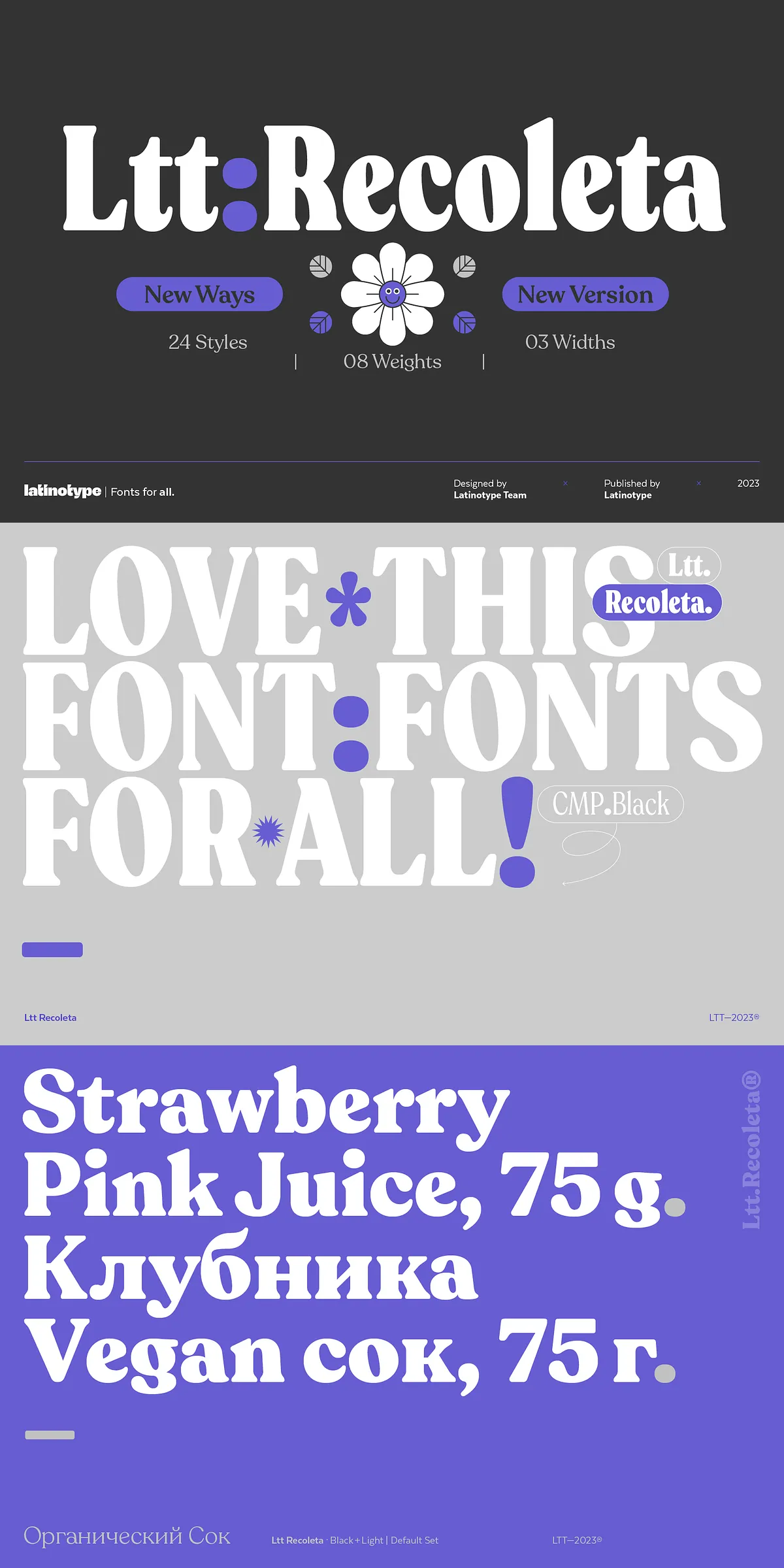
Meet Recoleta, a font family designed for dynamic and elegant typography needs. With a total of 24 distinct styles, Recoleta offers unmatched flexibility by expanding the classical width with two new condensed variants—one extremely narrow and sleek, and another positioned between the standard and condensed widths.
Comprehensive Weight and Width Options for Every Design
Recoleta’s design spectrum covers an impressive range, allowing creators to tailor their typography to precise specifications. Each of the three widths—classical, condensed, and the midpoint variant—includes eight weights ranging from thin to black, ensuring your text commands attention regardless of context.
Wide-Ranging Stylistic Alternatives
Beyond weight and width, Recoleta elevates your design with a wealth of stylistic alternatives. These options enrich both uppercase and lowercase characters, empowering you to infuse personality and uniqueness into your projects. Whether you want a subtle twist or a bold flair, these alternatives provide countless creative possibilities.
Multilingual and Extended Alphabet Support
Recognizing the need for global communication, Recoleta includes full support for the Cyrillic alphabet. This feature broadens the font’s usability beyond Latin scripts and opens doors to a wider audience and market reach.
Applications and Creative Potential
Recoleta’s range of styles and weights makes it an ideal choice for diverse applications:
- Editorial Design: From magazines to blogs, create engaging headlines and readable bodies with elegant weight contrasts.
- Branding Projects: Establish a unique brand voice with versatile widths and stylistic nuances that speak sophistication.
- Print Materials: Design striking flyers, posters, and packaging that stand out in any setting.
- Digital Platforms: Perfect for web typography and user interface components that require clarity and style.
Unlock the Full Power of Recoleta
Whether you’re working on a minimalist layout, a high-impact headline, or a comprehensive brand identity, Recoleta equips you with the tools to create bold, stylish typographic statements. Its well-balanced structure and wide gamut of styles invite experimentation and deliver results that captivate and communicate.
Step beyond conventional fonts and embrace a robust type family that empowers every letter you craft.